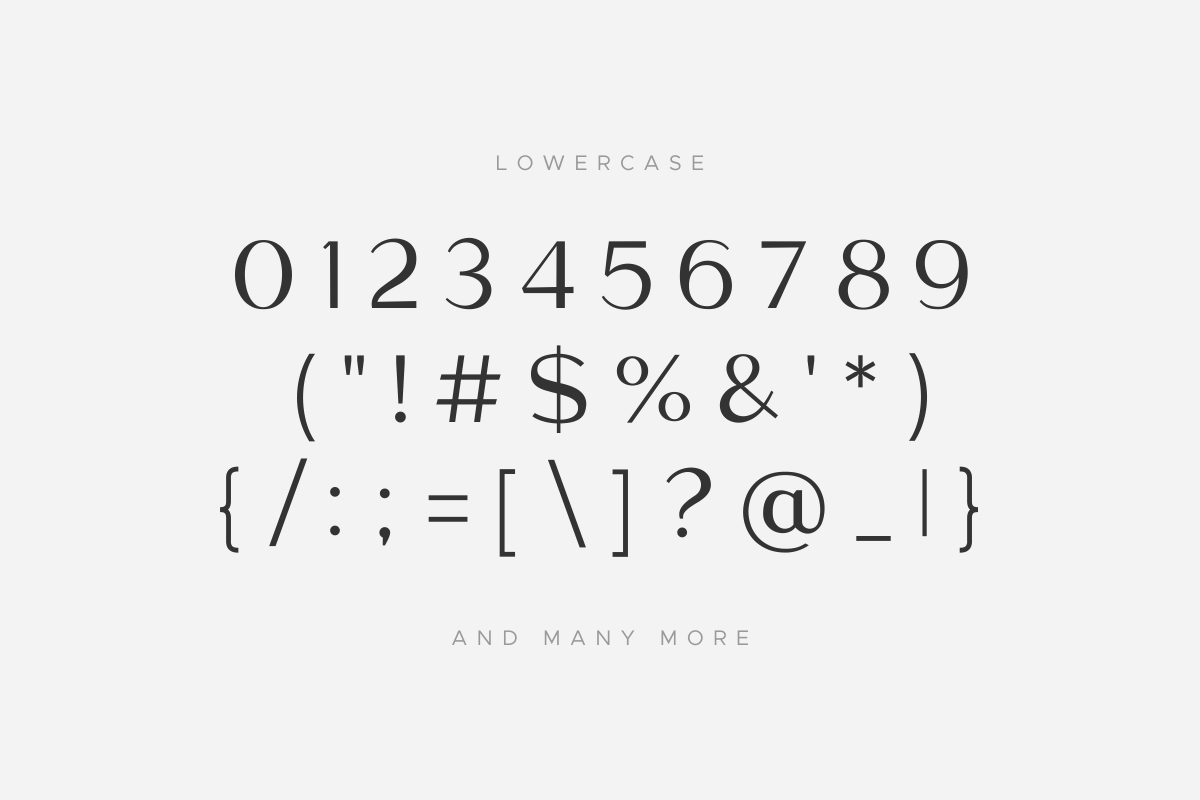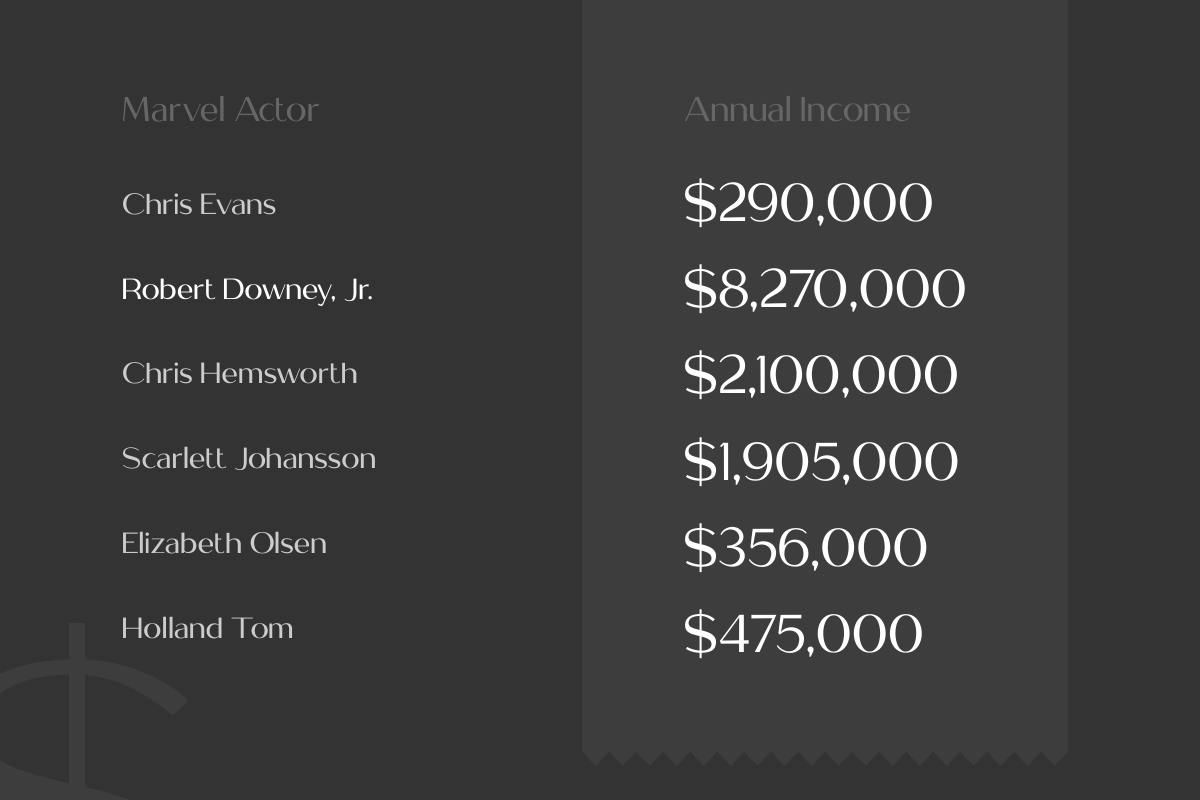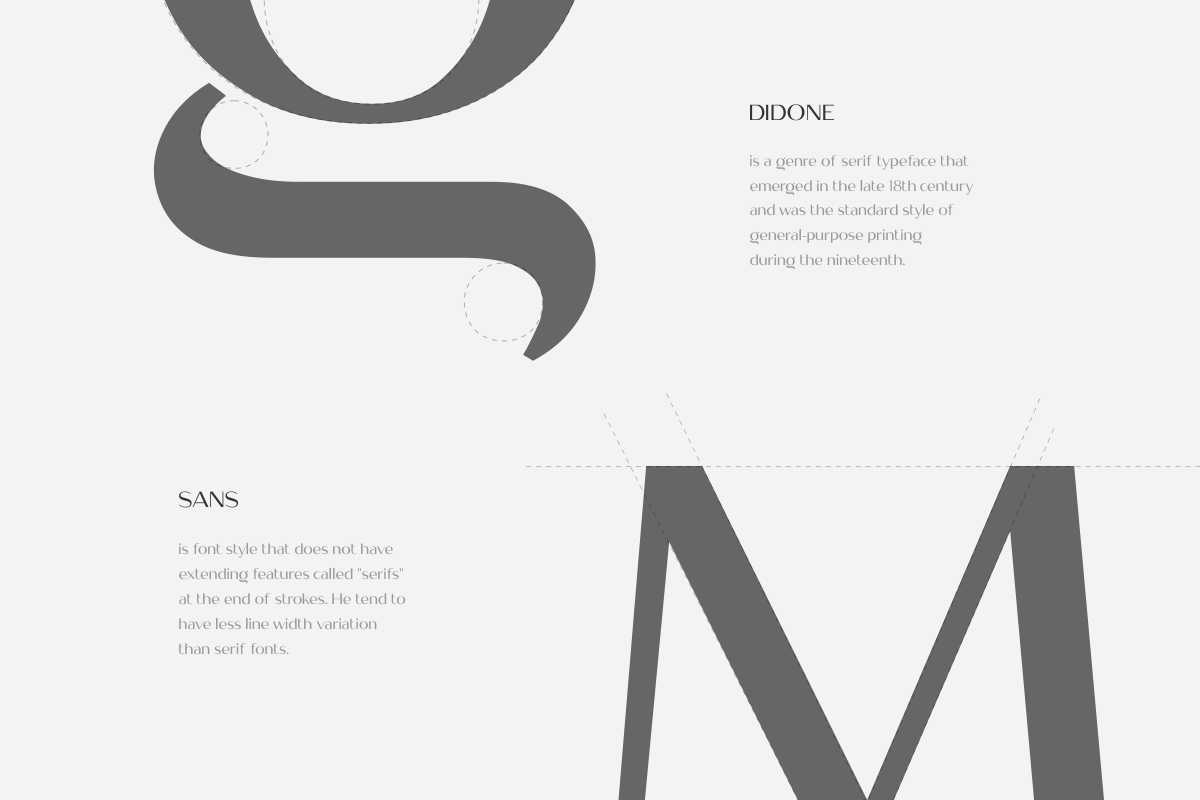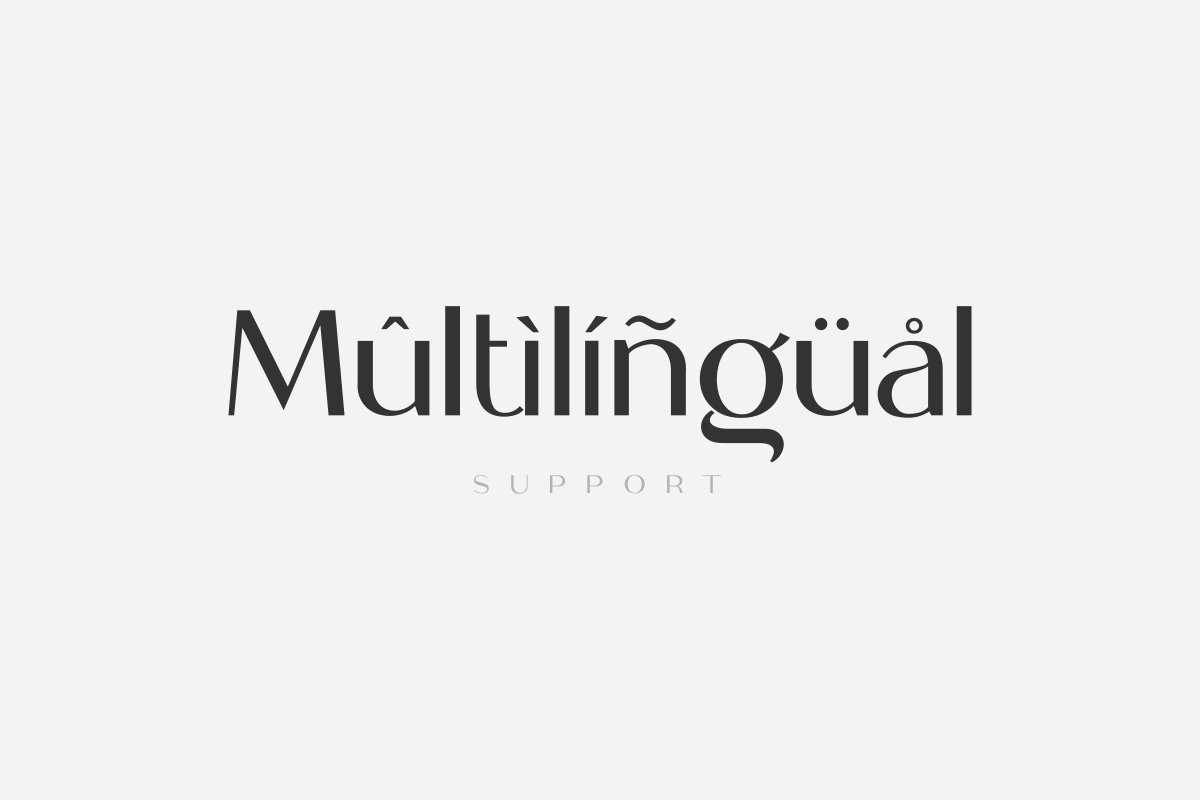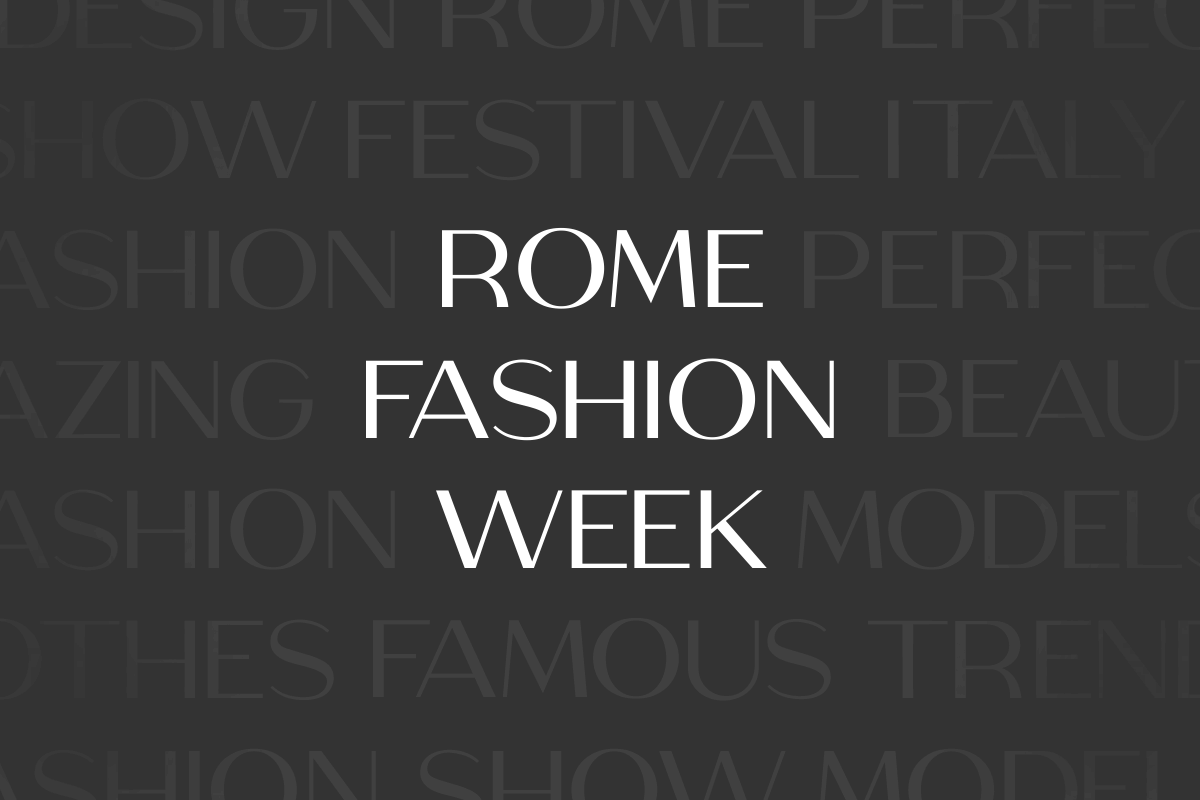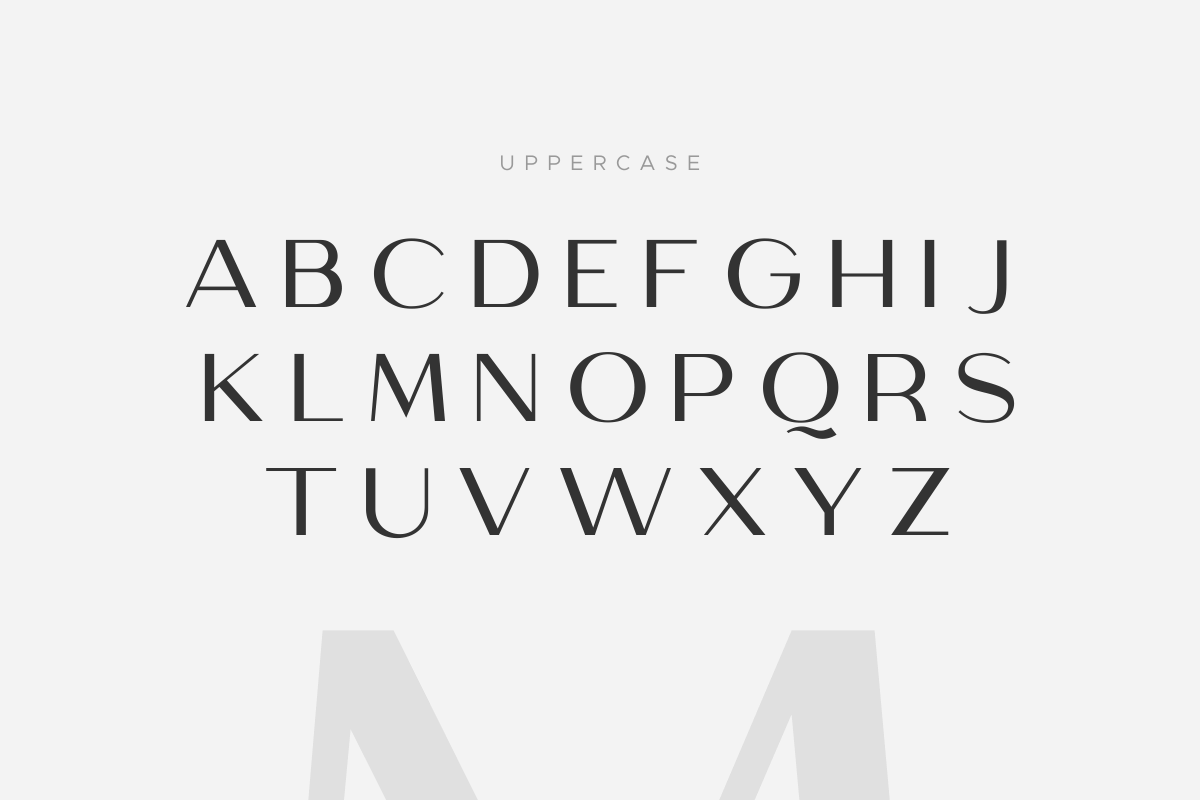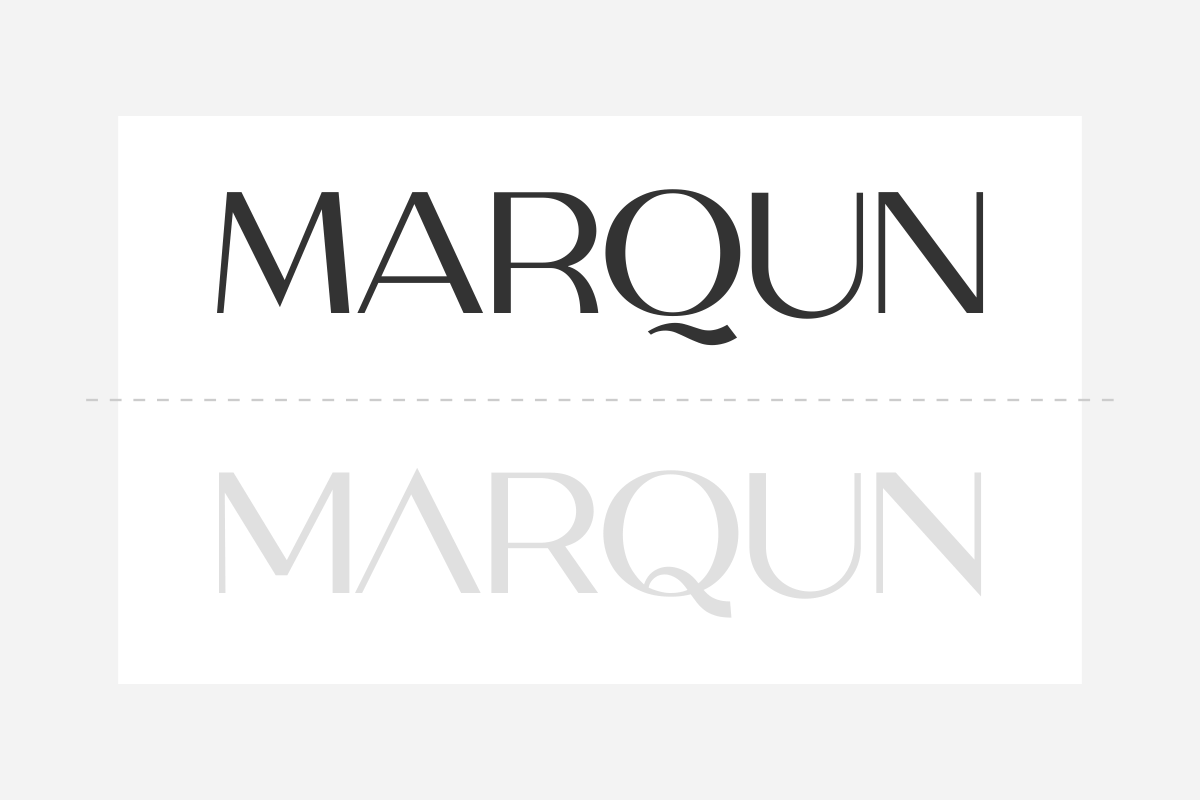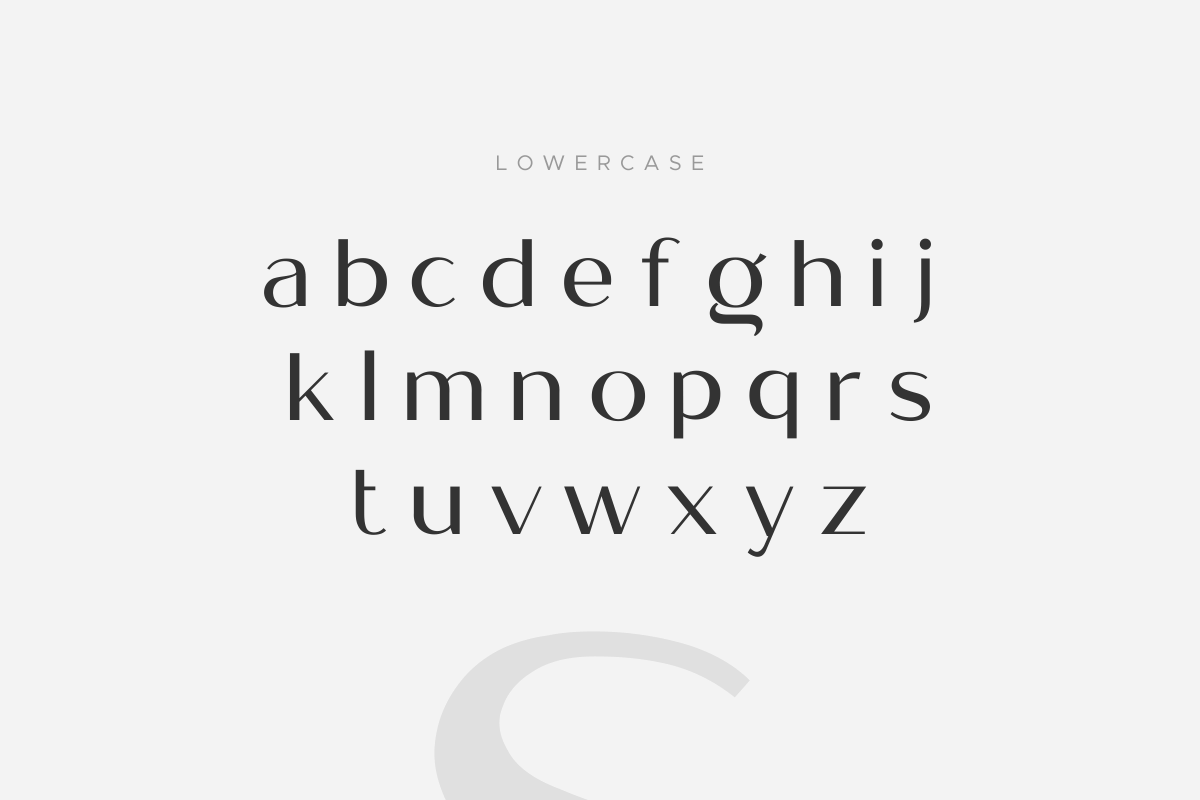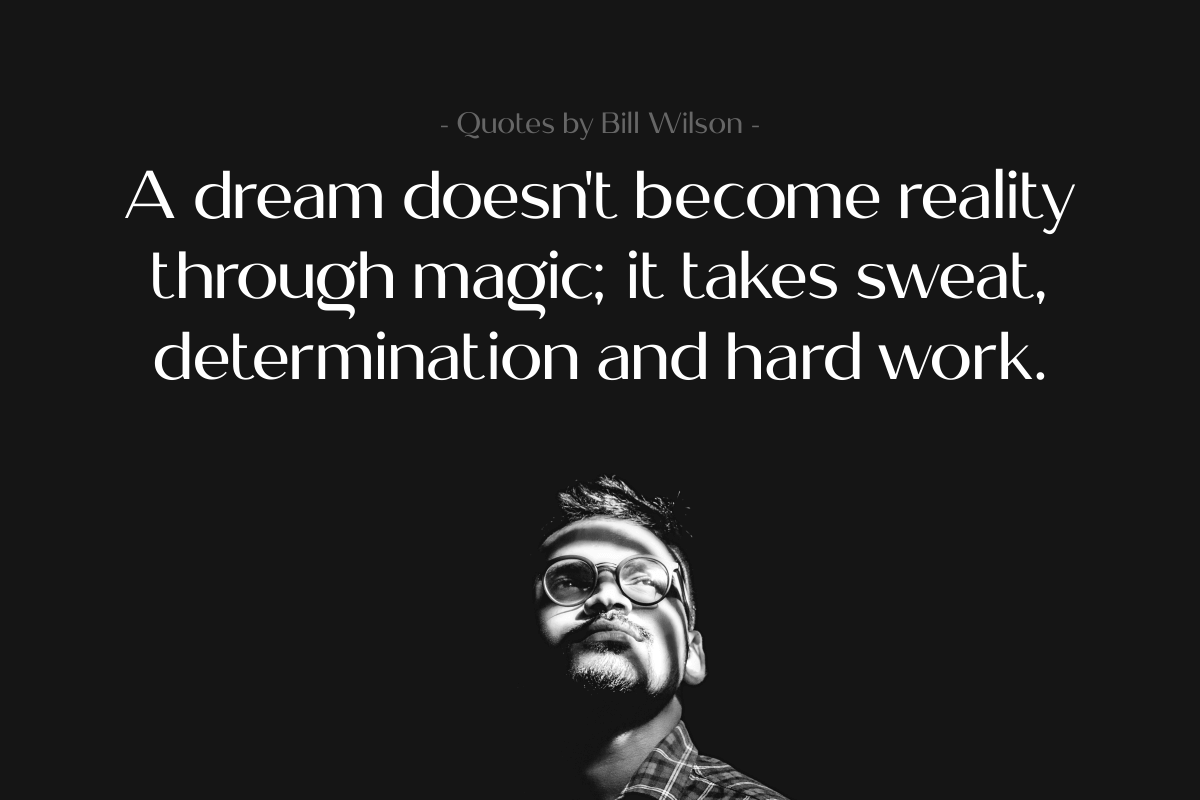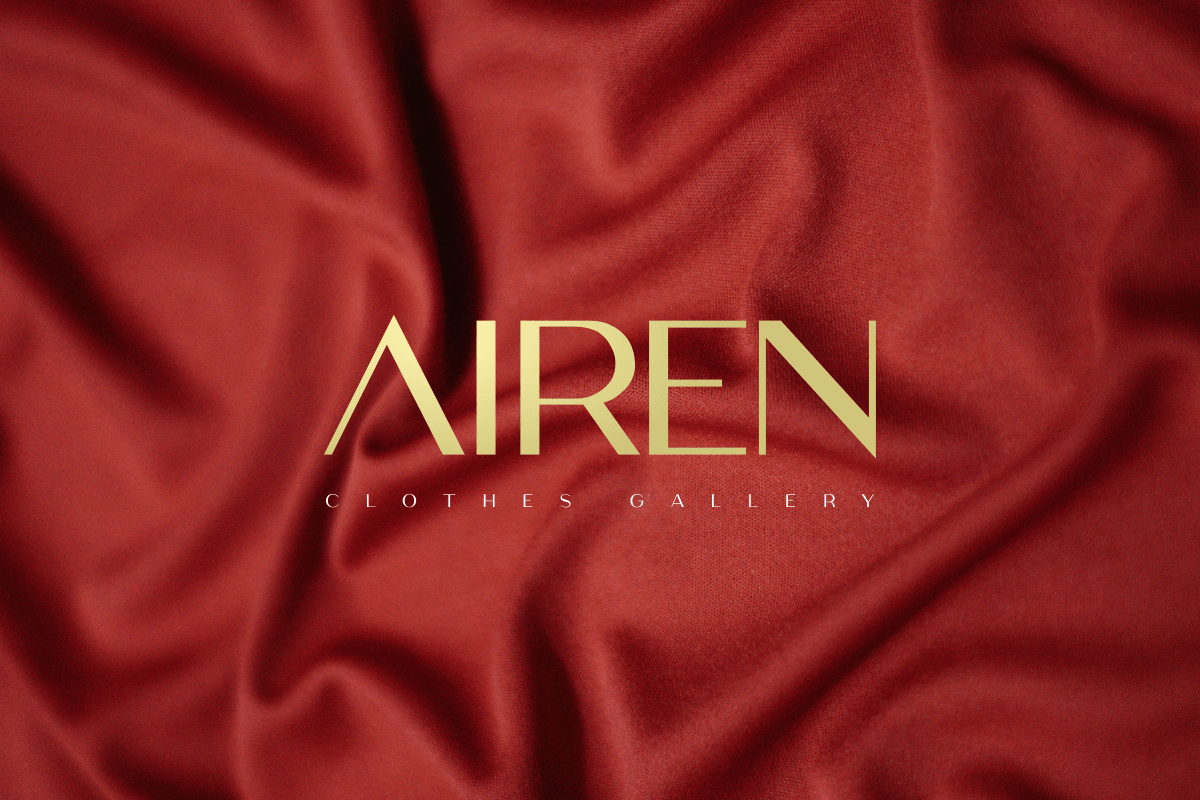
Meganté is a stylish modern calligraphy font with casual chic flair. It is perfect for branding, wedding invites and cards, and maybe for some project.
Meganté includes a full set of gorgeous uppercase and lowercase letters, numerals, and alternates. What will you get?